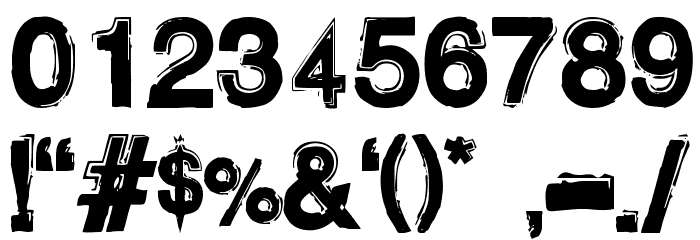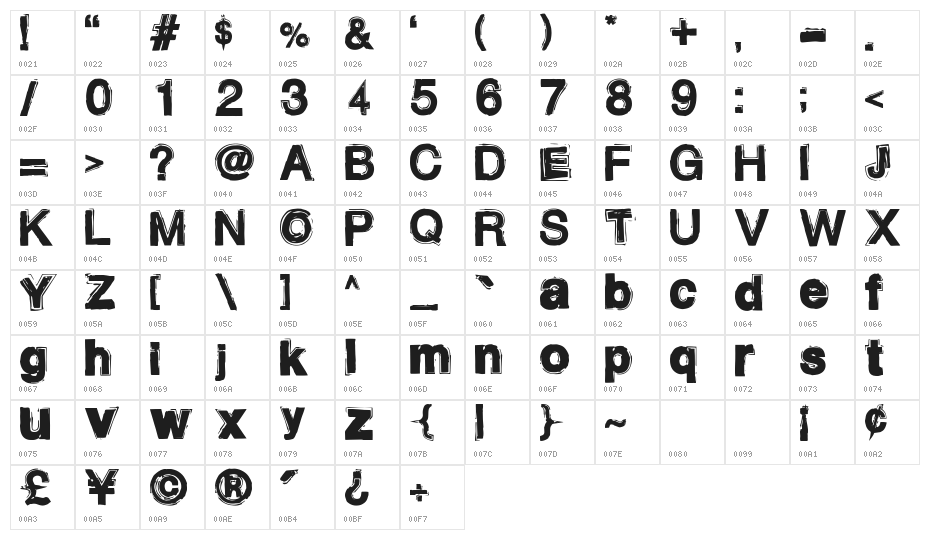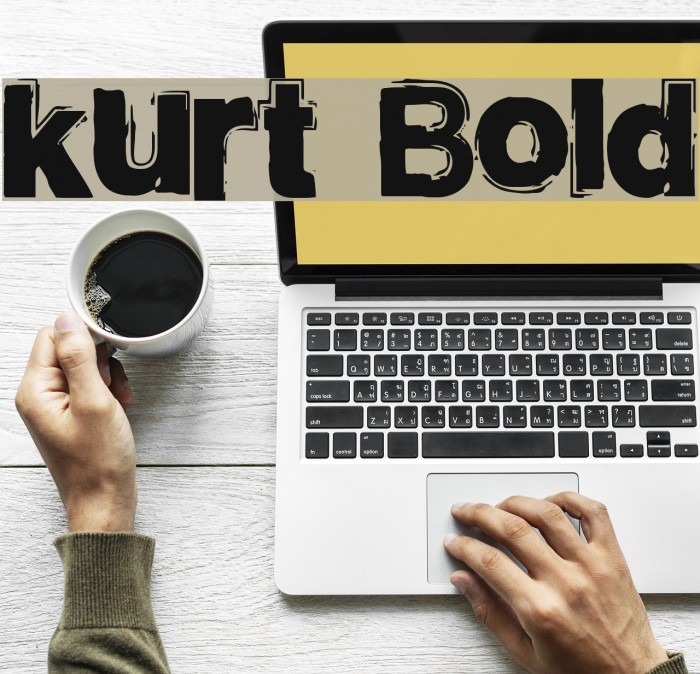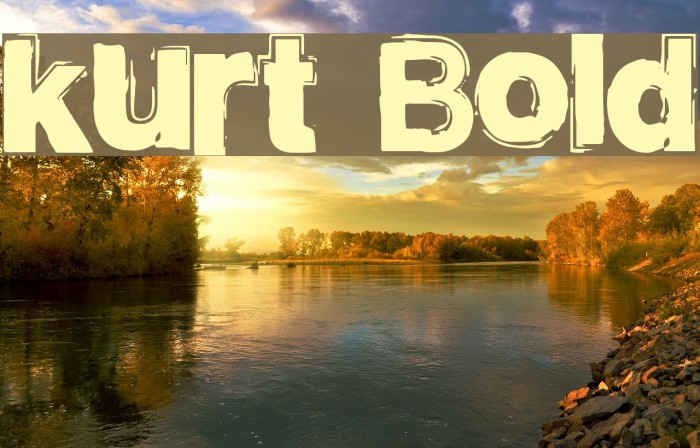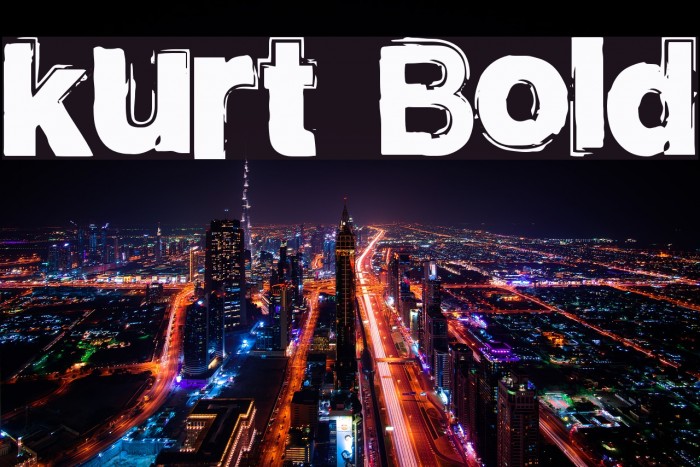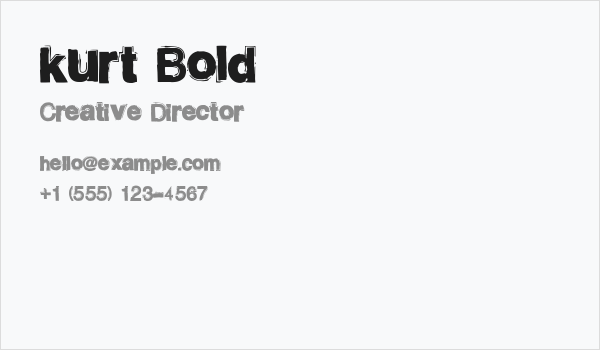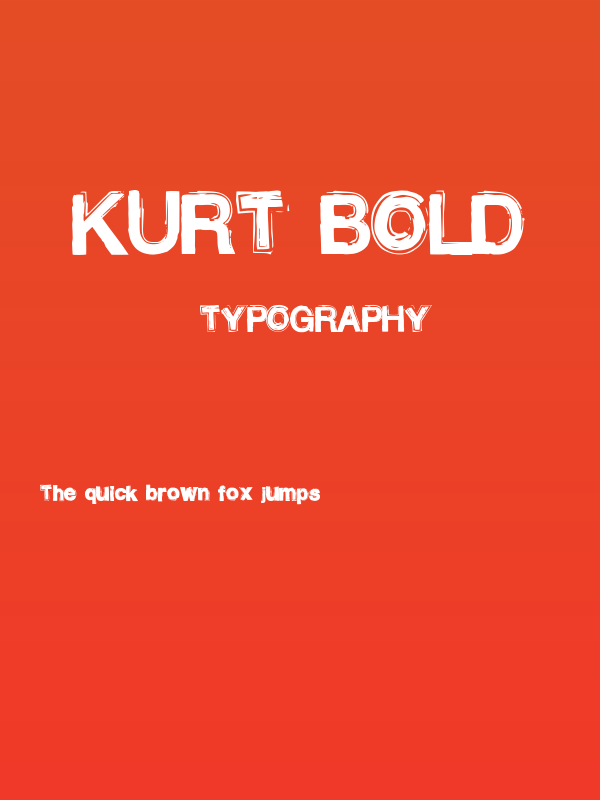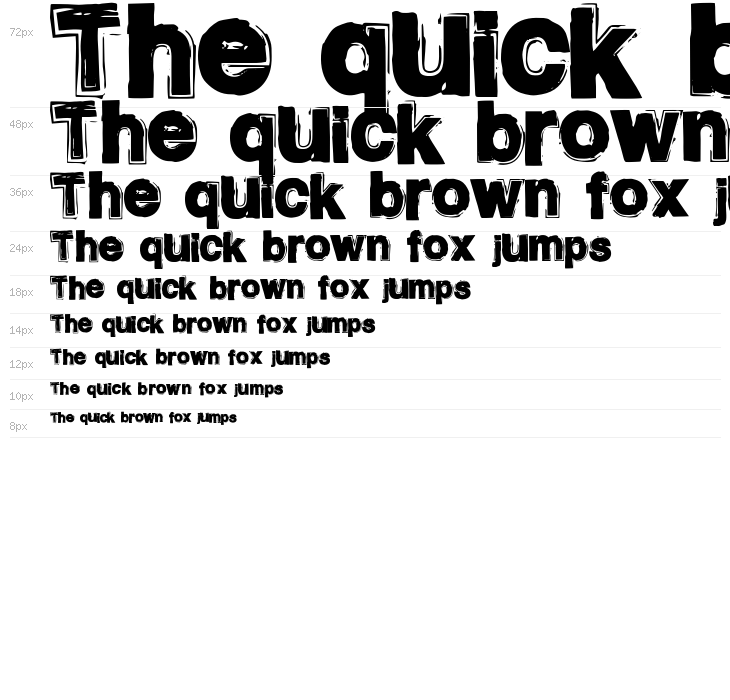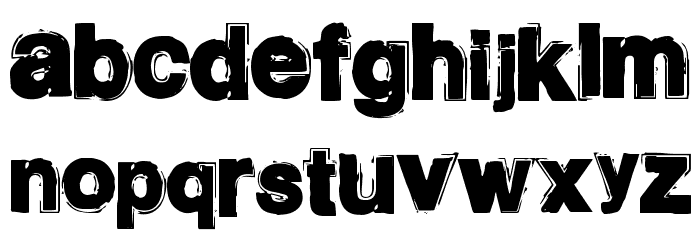
kurt Bold Font
kurt Bold Description
This font features a bold and distressed style, characterized by its rough, textured edges and a slightly grungy appearance. The uppercase and lowercase letters maintain a consistent weight, providing a strong visual impact. The numbers and special characters follow the same distressed aesthetic, adding to the overall cohesive look. The font's boldness and unique texture make it stand out, ideal for projects that require a strong, eye-catching typeface.
| Overall Style | Grunge, Edgy |
| Proposed Projects | Ideal for posters, album covers, branding, and any design that requires a bold, edgy look. |